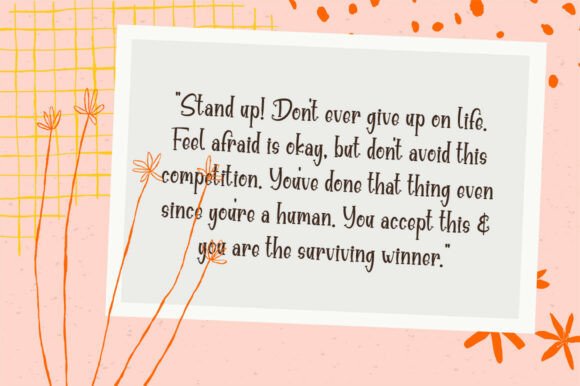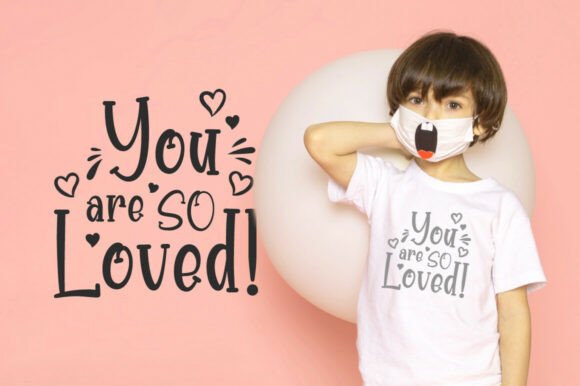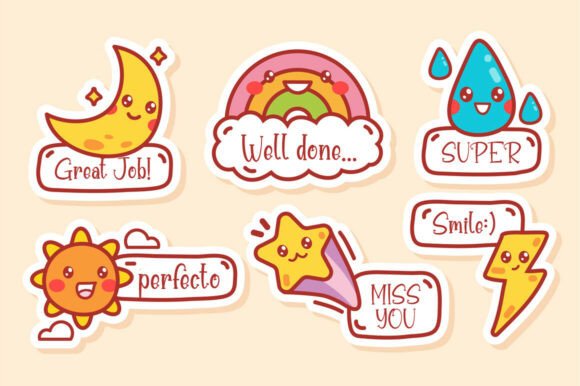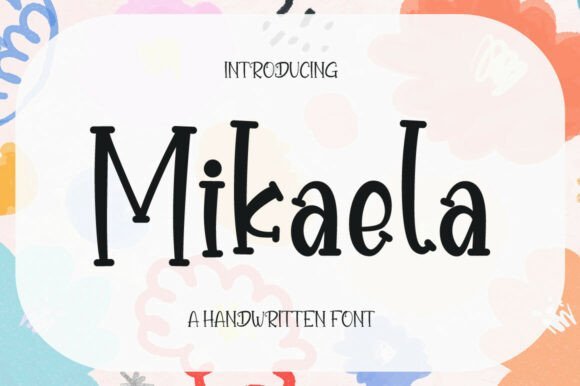
Introduction to Mikaela Font
Mikaela is a lovely and timeless handwritten font.
It is the best choice for creating eye-catching logos, branding, and quotes .
Key Features of Mikaela Font